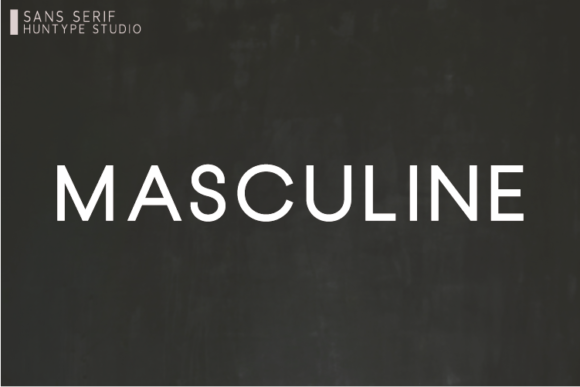
Introducing Masculine Font, the ultimate choice for modern app enthusiasts seeking the best font to elevate their designs! Created by the talented Huntype, this all-caps sans serif font is here to revolutionize your creative projects with its unparalleled versatility.
Immerse yourself in the world of Masculine Font, where smooth and clean lines merge effortlessly with a subtle touch of contrast. This captivating combination adds a touch of sophistication and elegance to your logos, branding, and web headings, ensuring that your designs leave a lasting impact on your audience.
Let Masculine Font be your secret weapon in crafting eye-catching and memorable logos. Whether you're building a brand from scratch or looking to refresh your existing one, this font will effortlessly embody your brand's identity. Its sleek and modern aesthetic communicates professionalism, making it perfect for startups, tech companies, and beyond.
But the benefits of Masculine Font don't stop there. Its versatility extends beyond logos, making it an ideal choice for web designers and developers. Elevate your web headings to new heights, captivating users from the moment they land on your page. With its clean and legible appearance, your website will exude modernity and sophistication, leaving visitors with a positive and memorable impression.
Downloading Masculine Font means gaining access to endless possibilities. Its timeless appeal and adaptability make it suitable for a wide range of applications, from app interfaces to packaging design. Let your creativity roam free and watch as this font transforms your projects into aesthetic masterpieces.